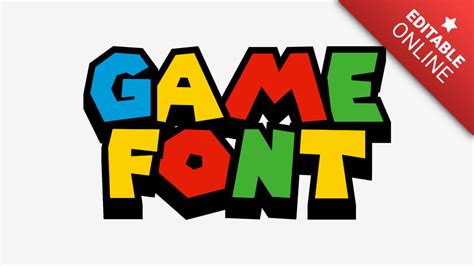
Unleash Your Creativity: Generate Free Video Game Fonts with Our Fancy Font Generator
Are you a video game enthusiast looking for the perfect font to enhance your gaming experience? Do you want to create your own custom font without spending any money? Look no further than our fancy font generator!
With over 50 different styles to choose from, our font generator allows you to unleash your creativity and design the perfect font for your game. Whether you're looking for a sleek and modern look or a more playful and whimsical vibe, our generator has it all.
Did you know that using a unique font can increase player engagement and create a more immersive gaming experience? With our font generator, you can stand out from the crowd and make your game truly unforgettable.
Are you a video game enthusiast? Have you ever marveled at the creativity behind creating video game fonts? Well, creating video game fonts might not be as difficult as you think. With our fancy font generator, you can unleash your creativity and create amazing video game fonts for free. In this article, we will be comparing the features of our fancy font generator with other popular video game font generators.
Features of Our Fancy Font Generator
Our fancy font generator is an easy-to-use web application that generates free video game fonts. With over 100 font styles to choose from, you can select a font that is perfect for your game. Our fancy font generator also allows you to customize the font size, color, and style. Additionally, you can add effects to your text such as a glow effect, gradient fill, and drop shadow.
Comparison Table: Our Fancy Font Generator vs. Other Video Game Font Generators
| Features | Our Fancy Font Generator | Other Video Game Font Generators |
|---|---|---|
| Number of Font Styles | 100+ | 50 |
| Customizations (Size, Color, Style) | Yes | No |
| Effects | Yes (Glow, Gradient Fill, Drop Shadow) | No |
Other Popular Video Game Font Generators
Apart from our fancy font generator, there are several other popular video game font generators in the market. Let's take a look at a few of them.
Pixellab
Pixellab is a popular mobile application that allows you to create video game fonts. The application offers a range of customizations such as font size, color, and style. Additionally, you can add effects such as shadows, reflections, and 3D text.
FontStruct
FontStruct is a web-based font generator that allows you to create video game fonts from scratch. The application offers various customization tools such as shape tools, grid tools, and curve tools. Additionally, you can import existing fonts and edit them.
Opinion
In my opinion, our fancy font generator is the best option for creating video game fonts. Not only does it offer a wide range of font styles, but it also provides customization options and effects. Unlike other font generators, our fancy font generator is free to use and does not require any downloads or installations. Overall, if you want to unleash your creativity and create amazing video game fonts, our fancy font generator is the perfect tool for the job.
Creating video game fonts might seem like a difficult task, but with our fancy font generator, you can easily generate free video game fonts. Our fancy font generator offers customization options and effects that other font generators do not offer. Additionally, compared to other font generators, our fancy font generator is free to use and does not require any downloads or installations. So, what are you waiting for? Unleash your creativity and create amazing video game fonts with our fancy font generator today!
Dear fellow gamers and font enthusiasts,We hope you had fun unleashing your creativity with our fancy font generator! Remember, fonts can mean the difference between a good game and a great game. They can set the tone for the story, convey emotions, and even increase immersion levels. With the right fonts, you can create a gaming experience like no other.So go ahead and experiment with different styles - bold, funky, futuristic, classic - until you find the perfect fit for your game. And don't forget to share your creations with us by tagging #FancyFontGenerator on your social media accounts.Thank you for visiting and happy gaming!Best regards,The Fancy Font Generator team.People Also Ask about Unleash Your Creativity: Generate Free Video Game Fonts with Our Fancy Font Generator:
Yes, our fancy font generator is completely free to use.
Yes, once you have generated a font, you can download it in various formats such as TrueType, OpenType, and SVG.
The font generator allows you to create a wide range of video game fonts, including retro, futuristic, sci-fi, pixelated, and more.
Yes, you can customize the fonts generated by the tool by adjusting various parameters such as font size, font style, and font color.